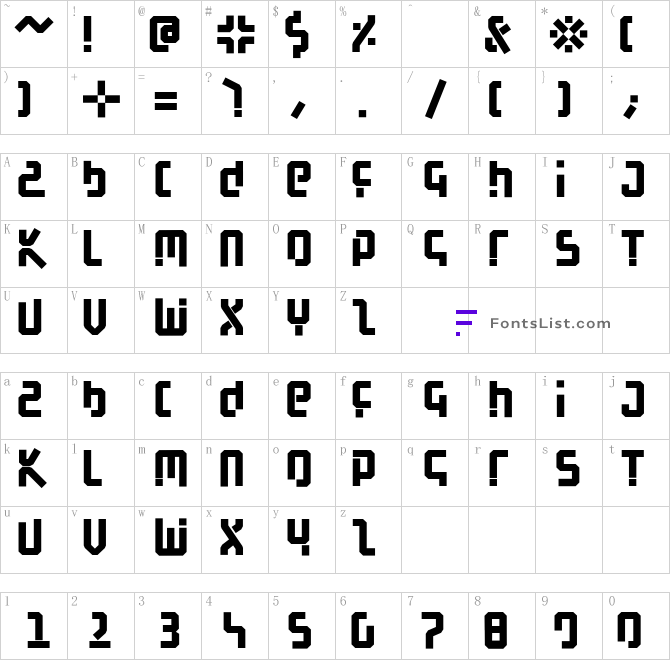
- Font Name:BauAHaus-Black
BauAHaus-Black.ttf is a very beautiful artistic font, BauAHaus-Black.ttf is widely used in the design and printing of various books and pictures,BauAHaus-Black.ttf has a strong visual impact,BauAHaus-Black.ttf is a commonly used font in newspapers, magazines and books, and is used in posters, e-commerce Poster design, store design, logo design, font design and other fields.BauAHaus-Black.